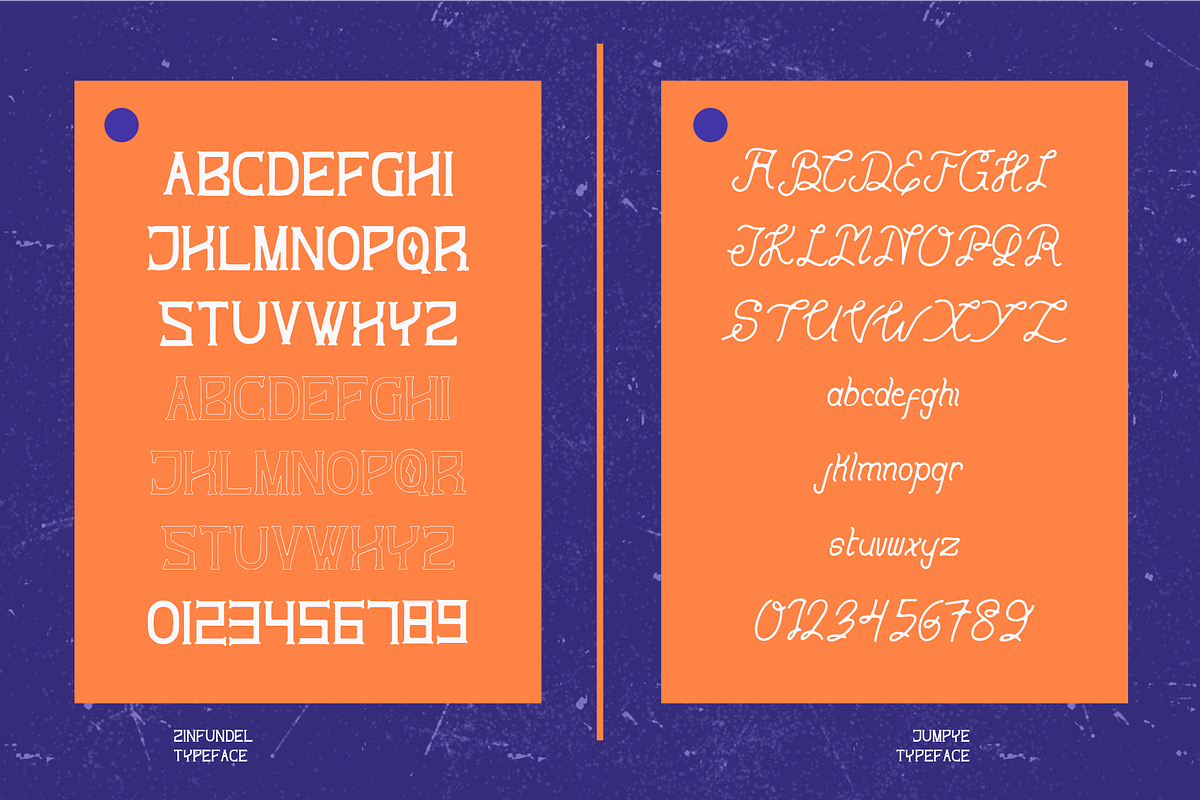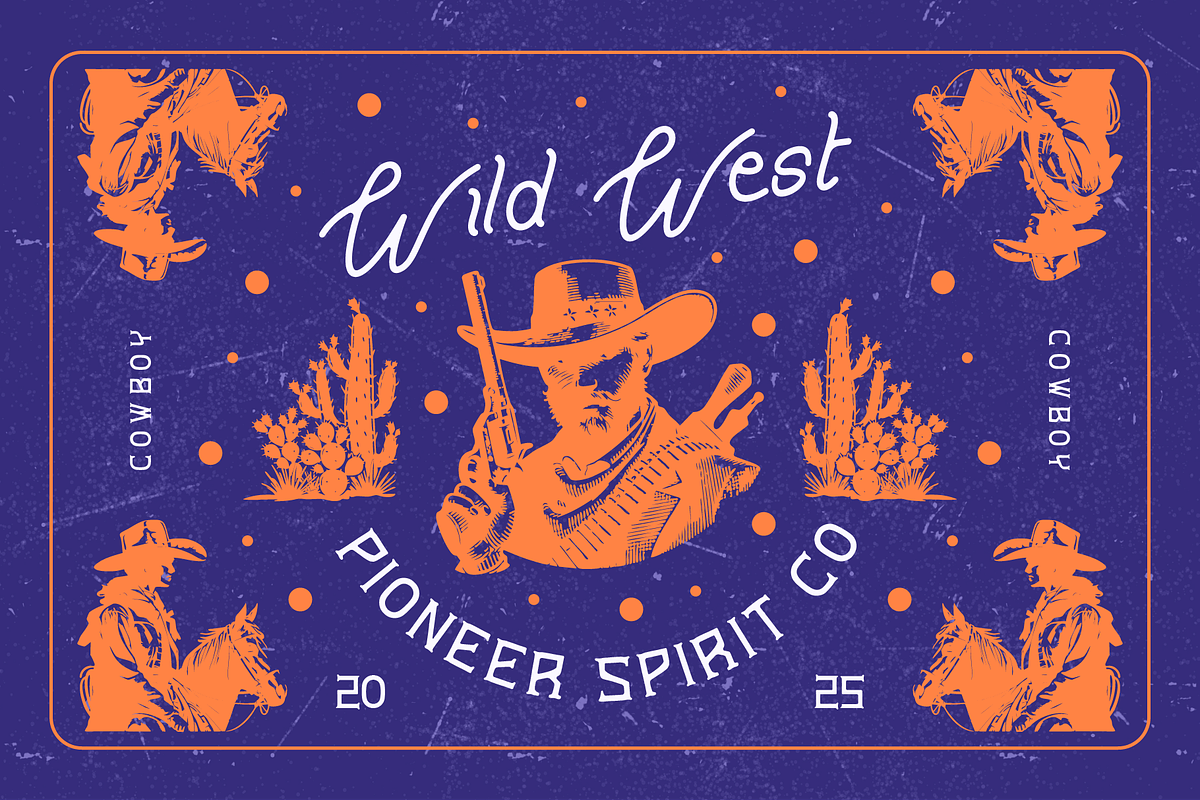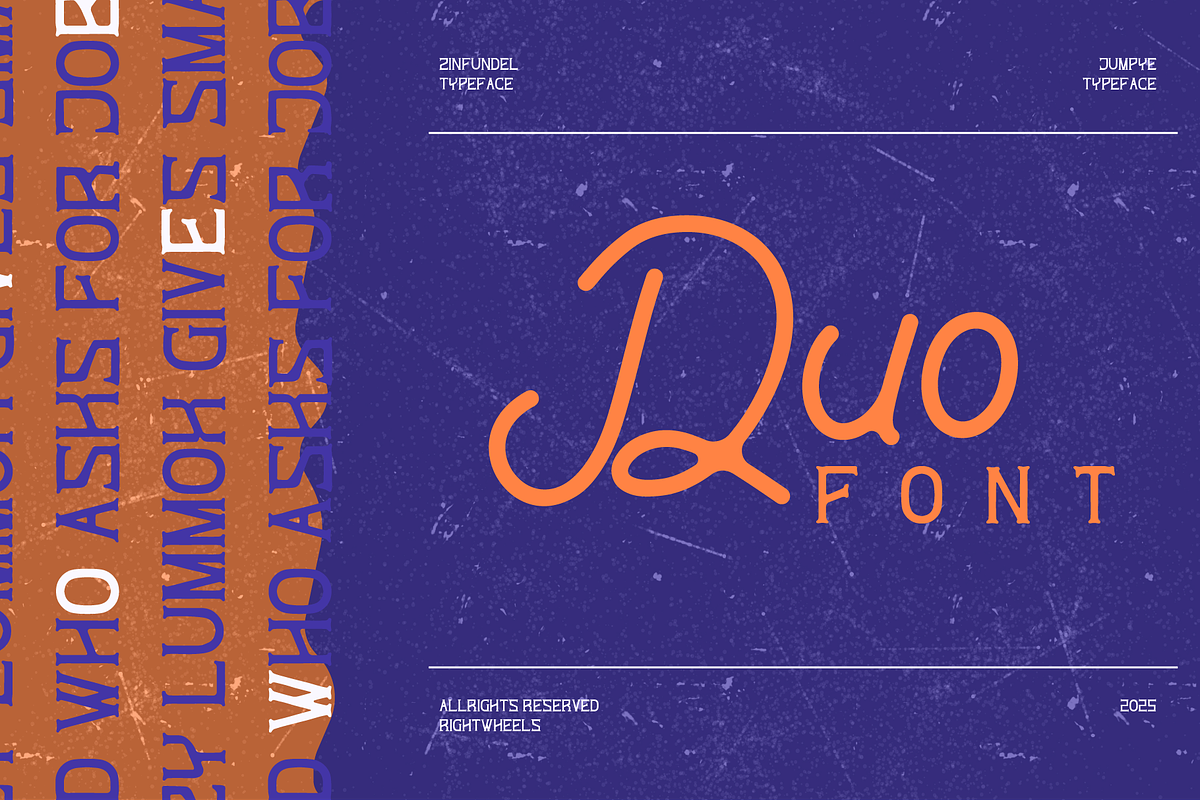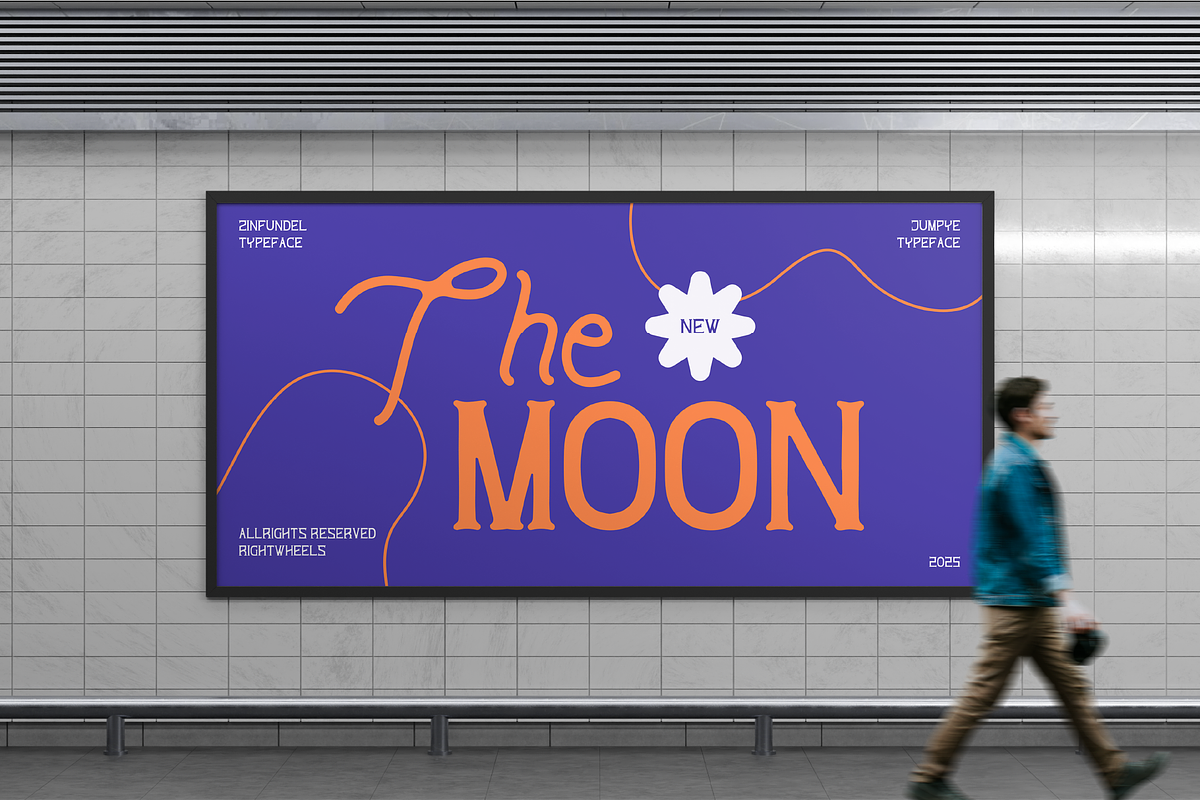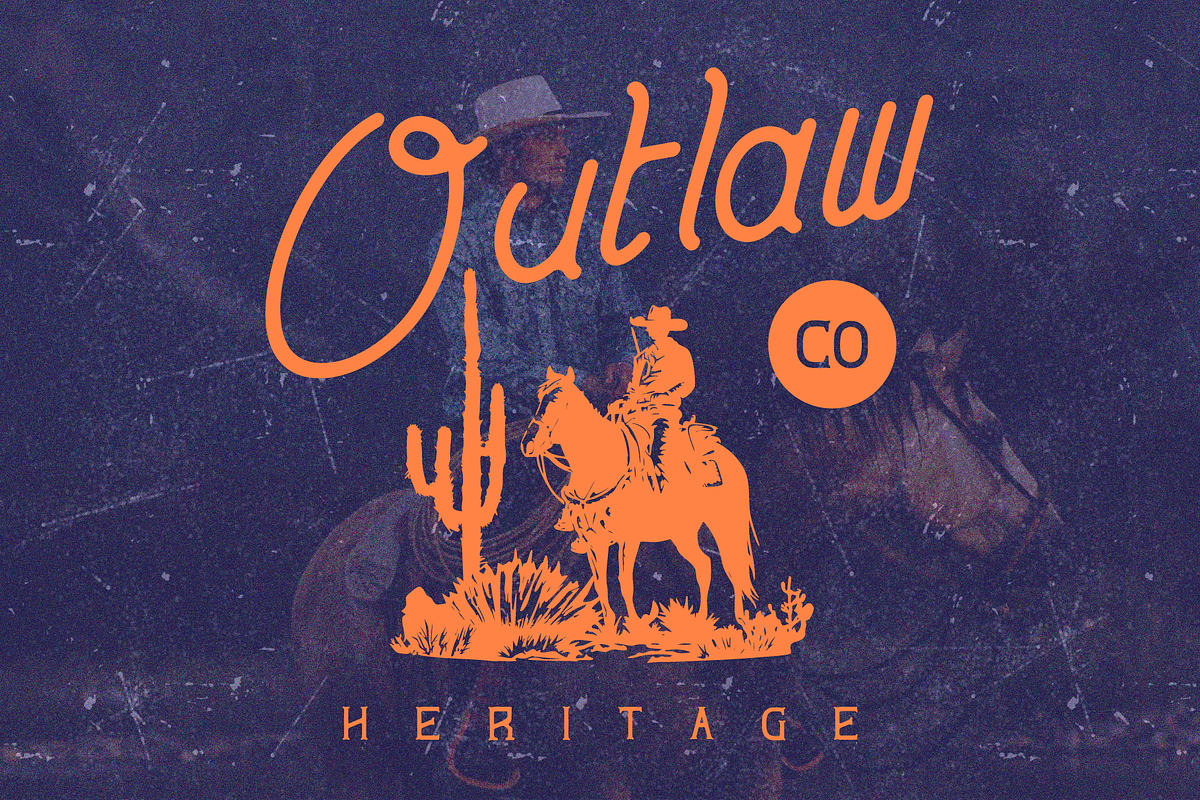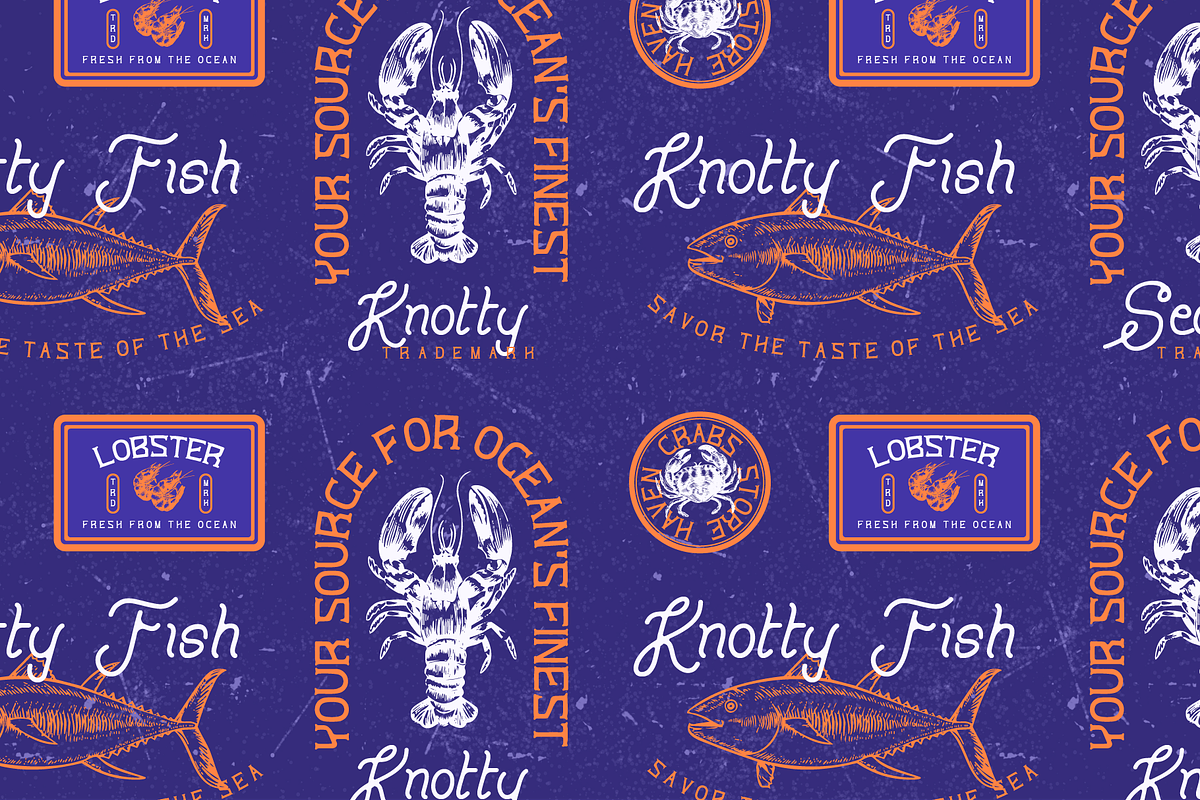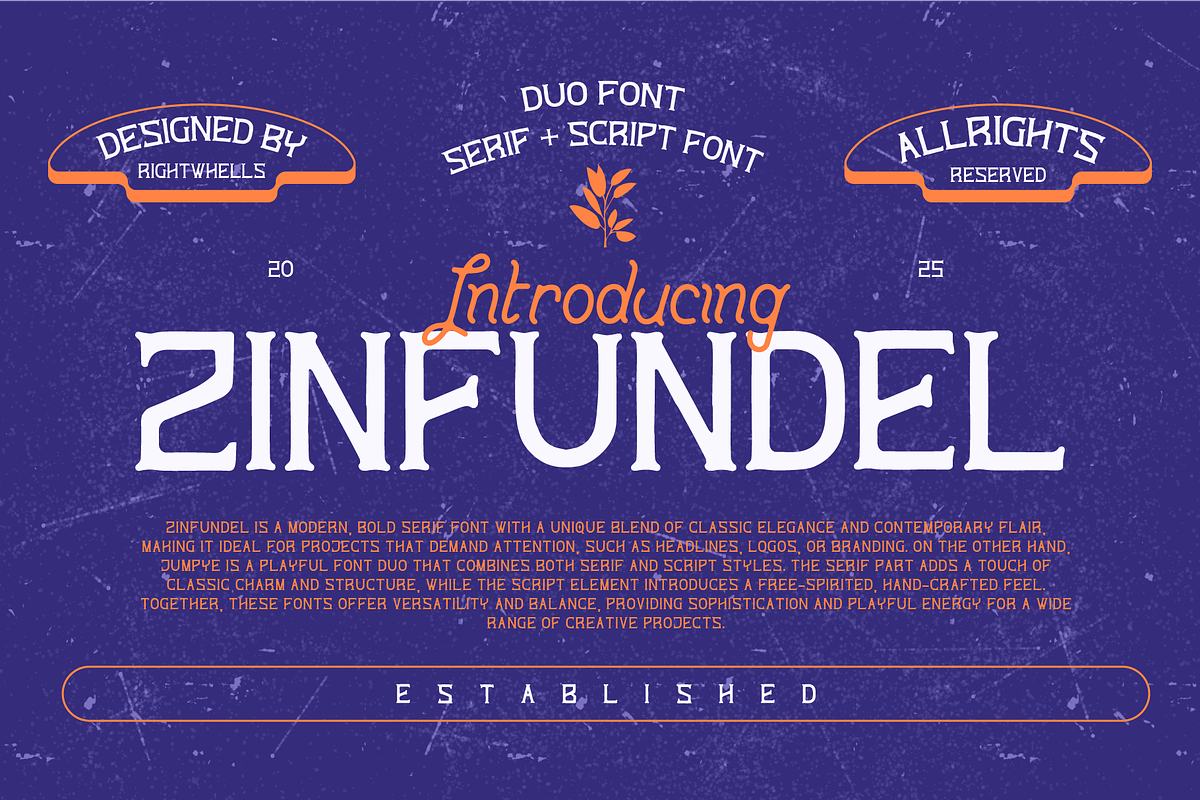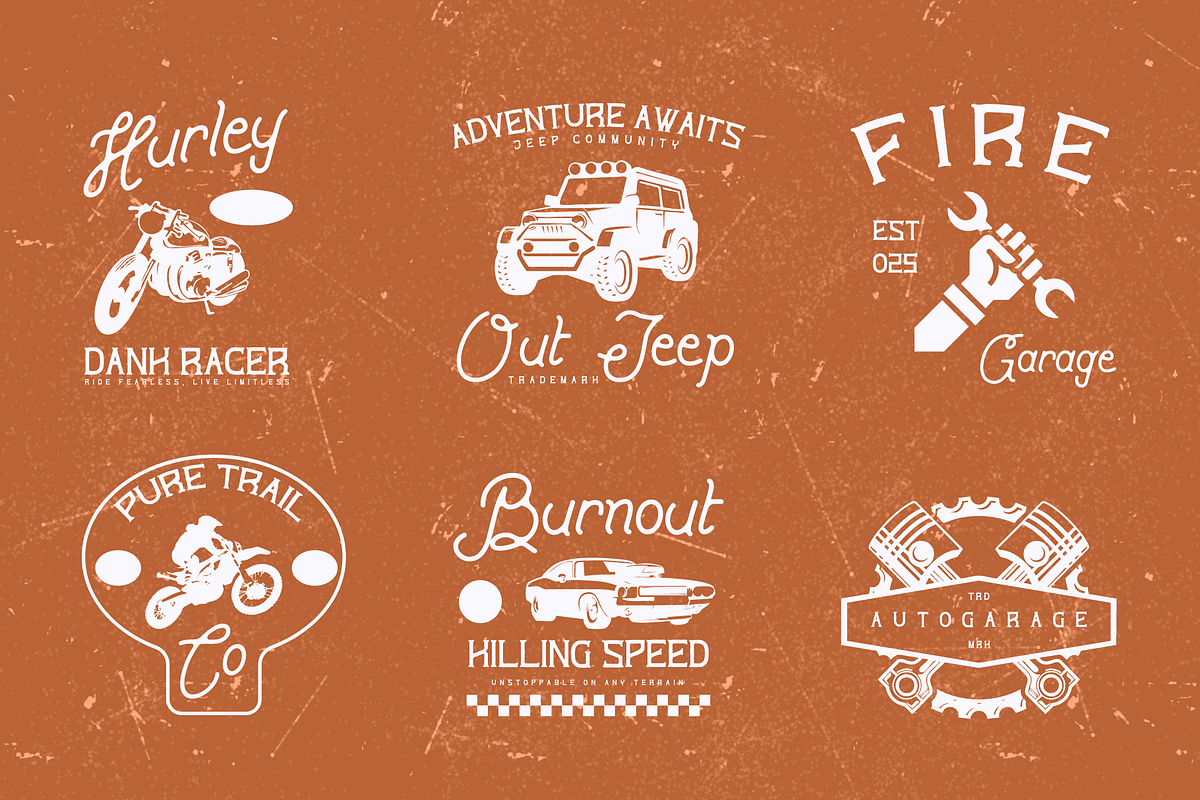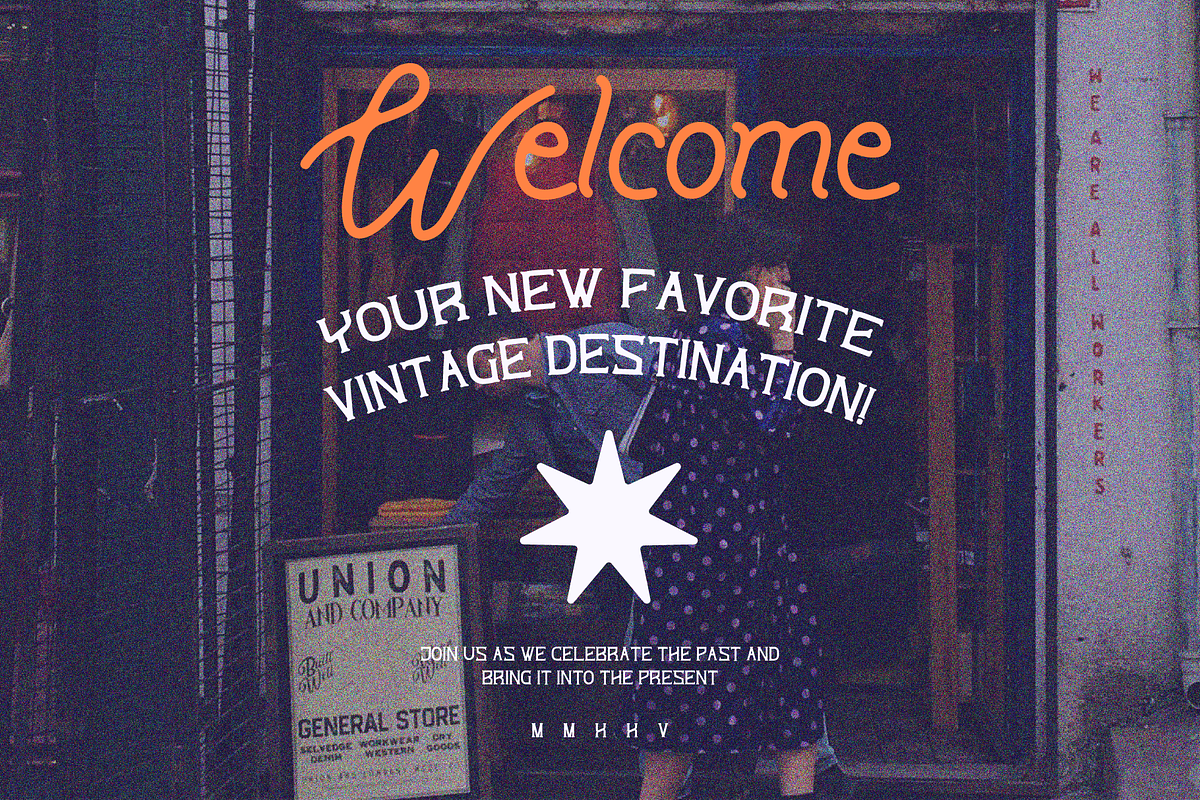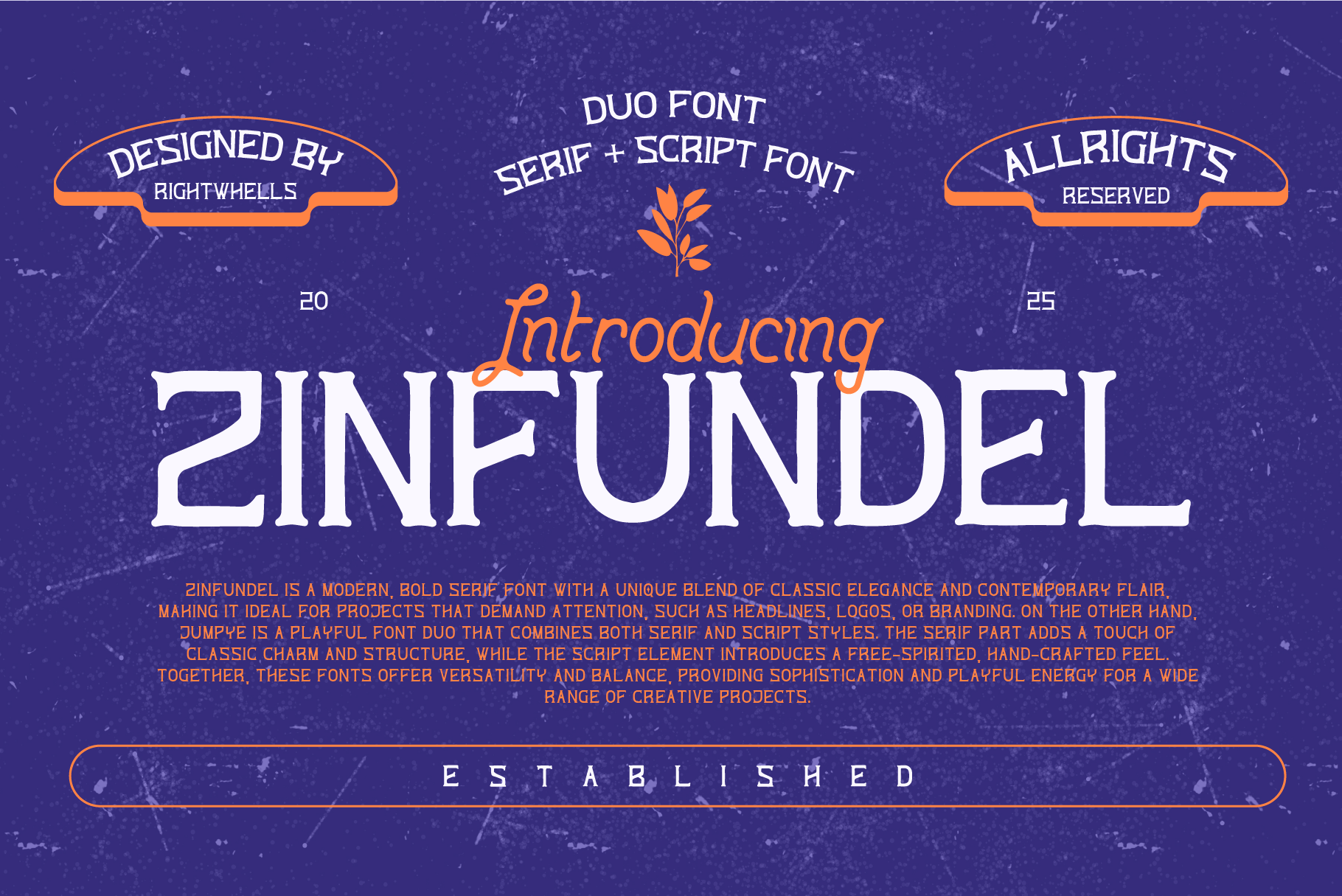
ZINFUNDEL - Retro Font Duo
a new vintage retro display font that exudes a nostalgic, classic charm. With its bold, eye-catching design, this font blends the timeless appeal of retro typography with a modern twist, making it perfect for creating impactful titles, logos, and designs that evoke a sense of the past while remaining fresh and relevant for contemporary use. Its unique character shapes and strong presence make it ideal for projects that seek to capture the essence of vintage style with a bold statement.